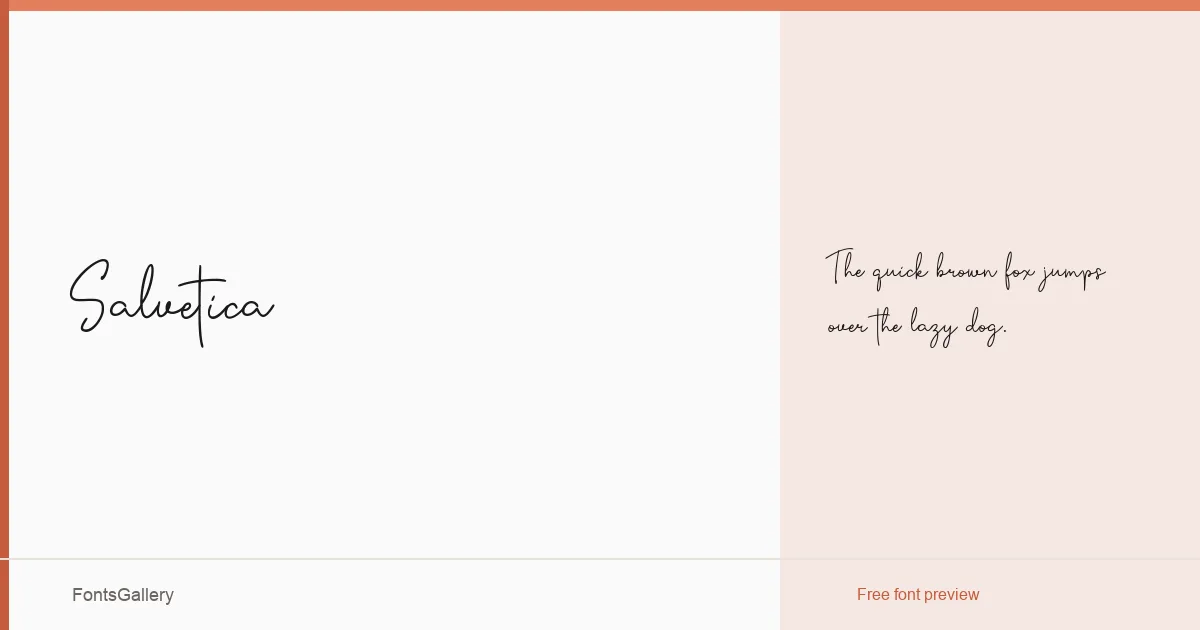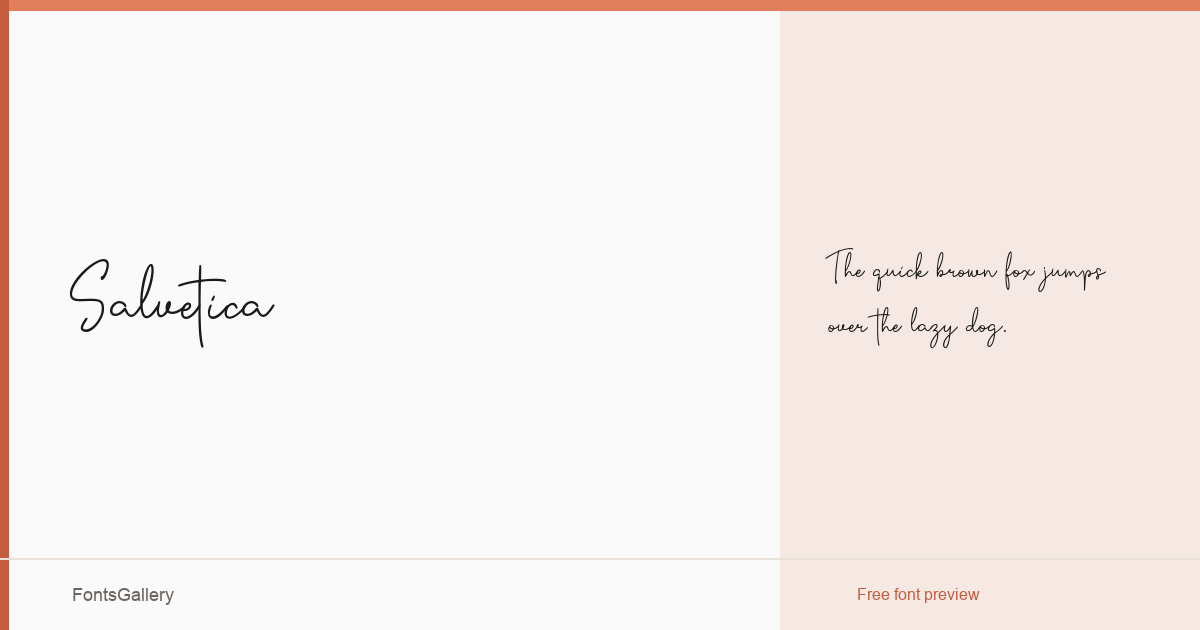
About Salvetica Font
Salvetica is a script typeface crafted by Sulthan Mada Maulana Tsani under Essentials Studio, designed to evoke a sense of timeless elegance and romance. Its flowing script style makes it a refined choice for projects that demand a classic, sophisticated touch. This typeface brings warmth and grace to any design it enhances.
Salvetica's letterforms embody an elegant and romantic character, with smooth, flowing strokes that are reminiscent of classic calligraphic tradition. The script style lends itself to a graceful rhythm across words, making each composition feel both personal and polished. Its classic sensibility ensures it carries a sense of heritage and refinement throughout every glyph.
Salvetica is ideally suited for wedding invitations, greeting cards, certificates, and social media graphics where an elegant, romantic aesthetic is desired. It also shines on invitation cards of all kinds, adding a distinguished and heartfelt quality to printed and digital designs alike. For a balanced and harmonious pairing, consider combining Salvetica with Aresink or Helvetica to complement its expressive script style with complementary structure.